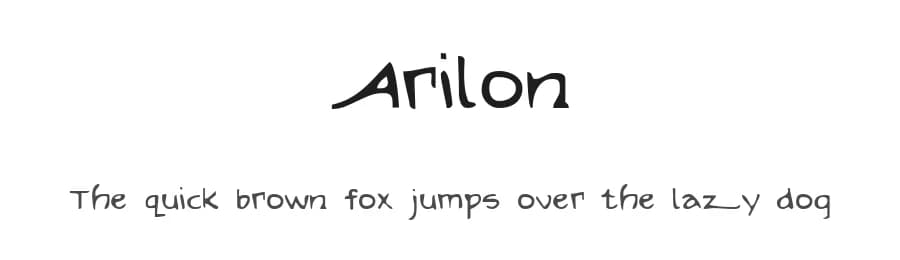
About Arilon Font
Arilon is a script & handwritten font designed by Iconian Fonts. It includes 221 glyphs, a regular weight, TTF (TrueType) format, and 216 languages. Arilon is free to download; check the license details on this page before commercial use. Script & handwritten fonts like Arilon work best for wedding invitations, greeting cards, signatures, and elegant branding.
Arilon Font is a script font that shines as a display or heading face. Pair it with a clean sans-serif or serif font for body text β the contrast creates a clear hierarchy while the two styles stay balanced and easy to read.
Arilon Font
Arilon Font is a script handwritten typeface by Iconian Fonts, ideal for logos, invitations, branding, and creative projects.